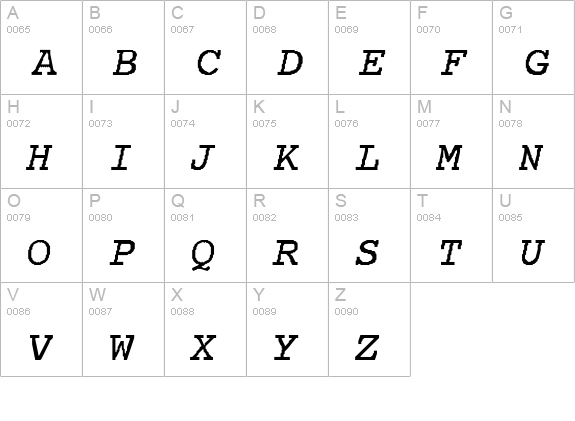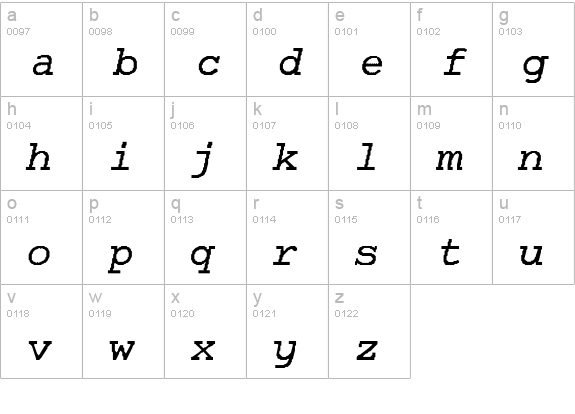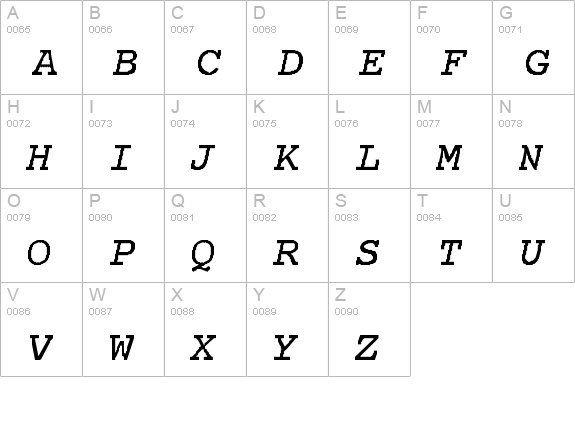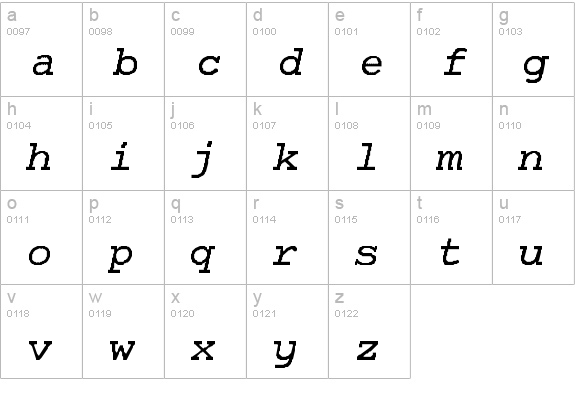
Bon-Normal is the standard, neutral variant in the Bon typeface family \xE2\x80\x94 well suited to general body text, paragraphs, and standard typographic work.
Bon-Normal is a versatile and modern font that brings a touch of elegance to any project. With its clean lines and balanced proportions, this typeface is perfect for a wide range of design applications, from branding to editorial design. The smooth curves and sharp angles of Bon-Normal make it a great choice for both headings and body text, ensuring readability and sophistication. What sets Bon-Normal apart is that it is not only stylish and functional, but also completely free to download. Yes, you heard that right - this high-quality font is available for free at FontsMarket.com. So whether you're a designer on a budget or just looking to add a new font to your collection, Bon-Normal is a fantastic option that won't cost you a penny. Download it today and elevate your designs with this stunning typeface.